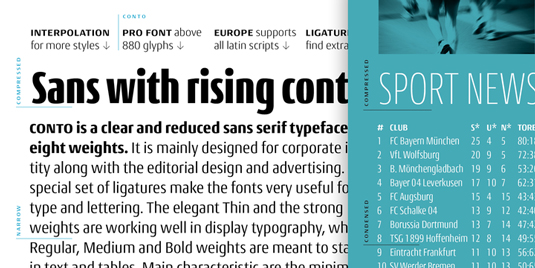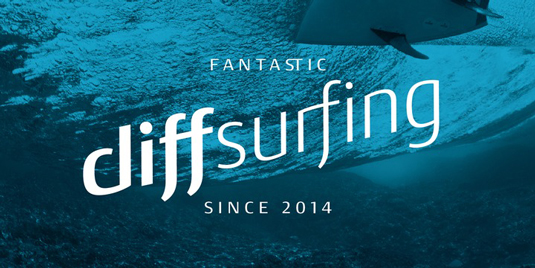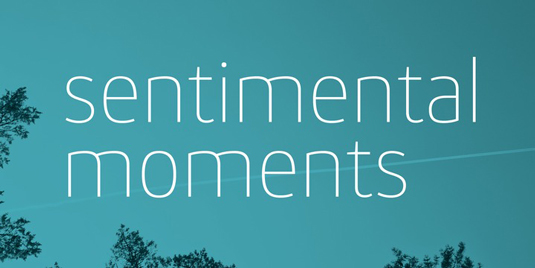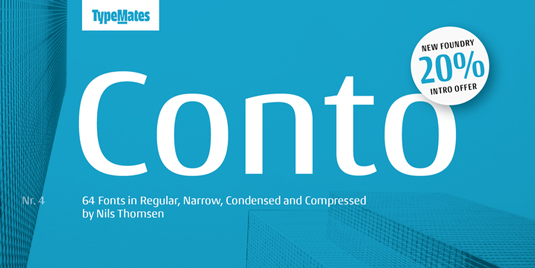
Font of the day: Conto
Conto by Nils Thomsen
A simple, elegant typeface, Conto was created by designer Nils Thomsen. From essential reading text and captions to advertsing and packaging, Conto is suited to a variety of digital and print projects.